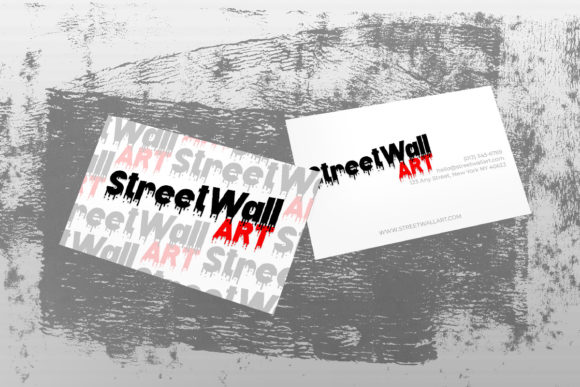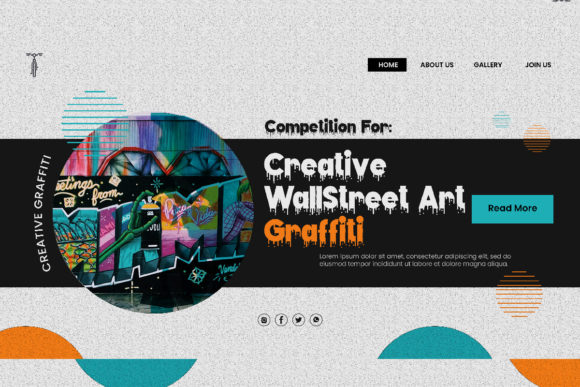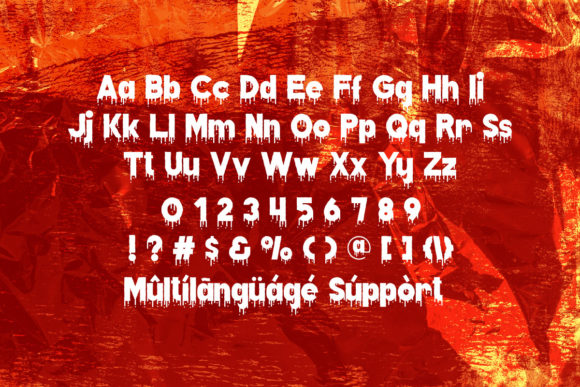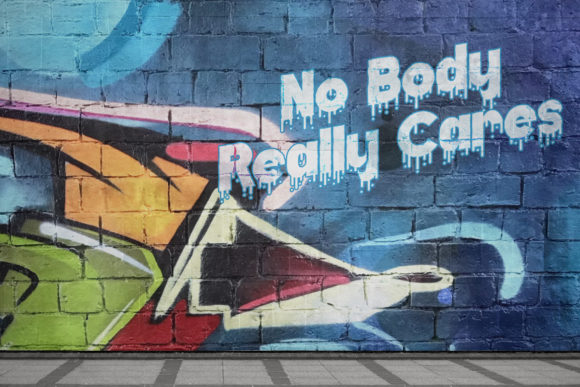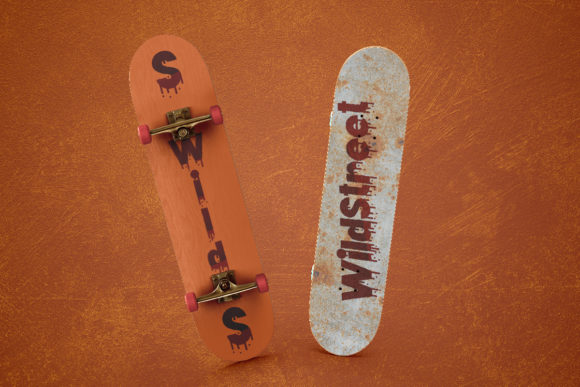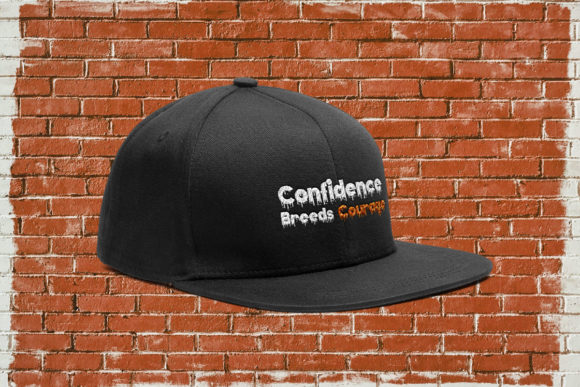
Dripped Ink Font: The Ultimate Decorative Typeface for Edgy Designs
Are you tired of using the same old fonts for your designs? Look no further! Introducing Dripped Ink Font, a unique and eye-catching typeface that’s perfect for creating bold and edgy designs. With its horror, game, and urban-inspired aesthetic, this font is sure to make your projects stand out from the crowd.
What is Dripped Ink Font?
Dripped Ink Font is a decorative font that’s designed to resemble dripping ink. Its creative and modern style makes it perfect for a wide range of projects, from branding and posters to graffiti designs and more. The font’s horror feel and urban vibe give it a distinct edge that’s sure to grab attention.
Key Features of Dripped Ink Font
- Unique and Decorative: Dripped Ink Font is a one-of-a-kind typeface that’s sure to add a touch of personality to your designs.
- Horror and Urban-Inspired: The font’s horror and urban aesthetic makes it perfect for projects that require a bold and edgy look.
- Modern and Creative: The font’s modern style and creative design make it perfect for a wide range of projects, from branding to graffiti designs.
- High-Quality: Dripped Ink Font is a high-quality typeface that’s designed to deliver crisp and clear results, even at large sizes.
Use Cases for Dripped Ink Font
Dripped Ink Font is a versatile typeface that can be used for a wide range of projects, including:
- Branding: Use Dripped Ink Font to create bold and eye-catching logos that make a statement.
- Posters: Add a touch of horror and urban flair to your posters with Dripped Ink Font.
- Graffiti Designs: The font’s dripping ink style makes it perfect for graffiti designs and street art-inspired projects.
- Games: Use Dripped Ink Font to create bold and edgy game titles, menus, and UI elements.
Why Choose Dripped Ink Font?
With so many fonts to choose from, why should you choose Dripped Ink Font? Here are just a few reasons:
- Uniqueness: Dripped Ink Font is a one-of-a-kind typeface that’s sure to make your designs stand out.
- Versatility: The font can be used for a wide range of projects, from branding to graffiti designs.
- Quality: Dripped Ink Font is a high-quality typeface that’s designed to deliver crisp and clear results.
Tips for Using Dripped Ink Font
Here are a few tips for getting the most out of Dripped Ink Font:
- Use it Sparingly: Because of its bold and edgy style, it’s best to use Dripped Ink Font sparingly to avoid overwhelming your design.
- Experiment with Colors: The font looks great in a variety of colors, so don’t be afraid to experiment and find the perfect hue for your design.
- Pair it with Other Fonts: Dripped Ink Font pairs well with a variety of other fonts, so feel free to get creative and find the perfect combination for your design.
Dripped Ink Font is a unique and eye-catching typeface that’s perfect for designers and crafters who want to add a touch of horror and urban flair to their designs. With its creative and modern style, high-quality design, and versatility, this font is sure to become a go-to in your design arsenal. So why wait? Download Dripped Ink Font today and start creating bold and edgy designs that make a statement!